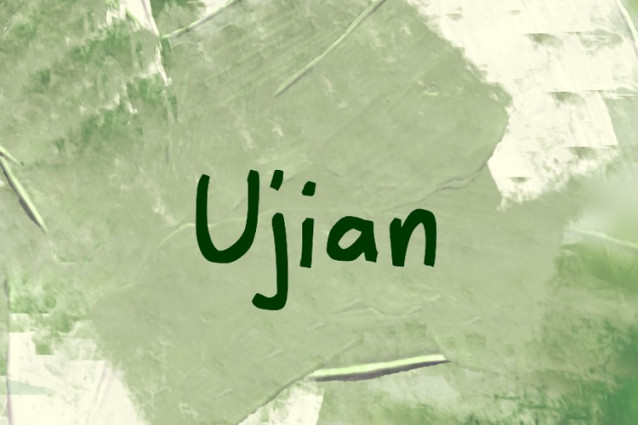
Ujian Font
Ujian Font is a chunky, comic, and cartoon display font. With its neat and joyful personality, this font will enhance any project you wish to create!